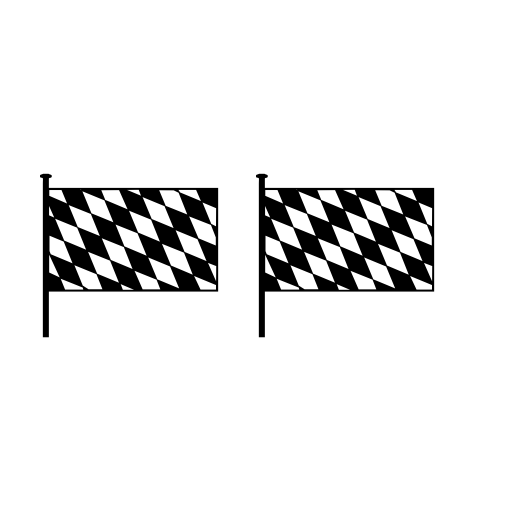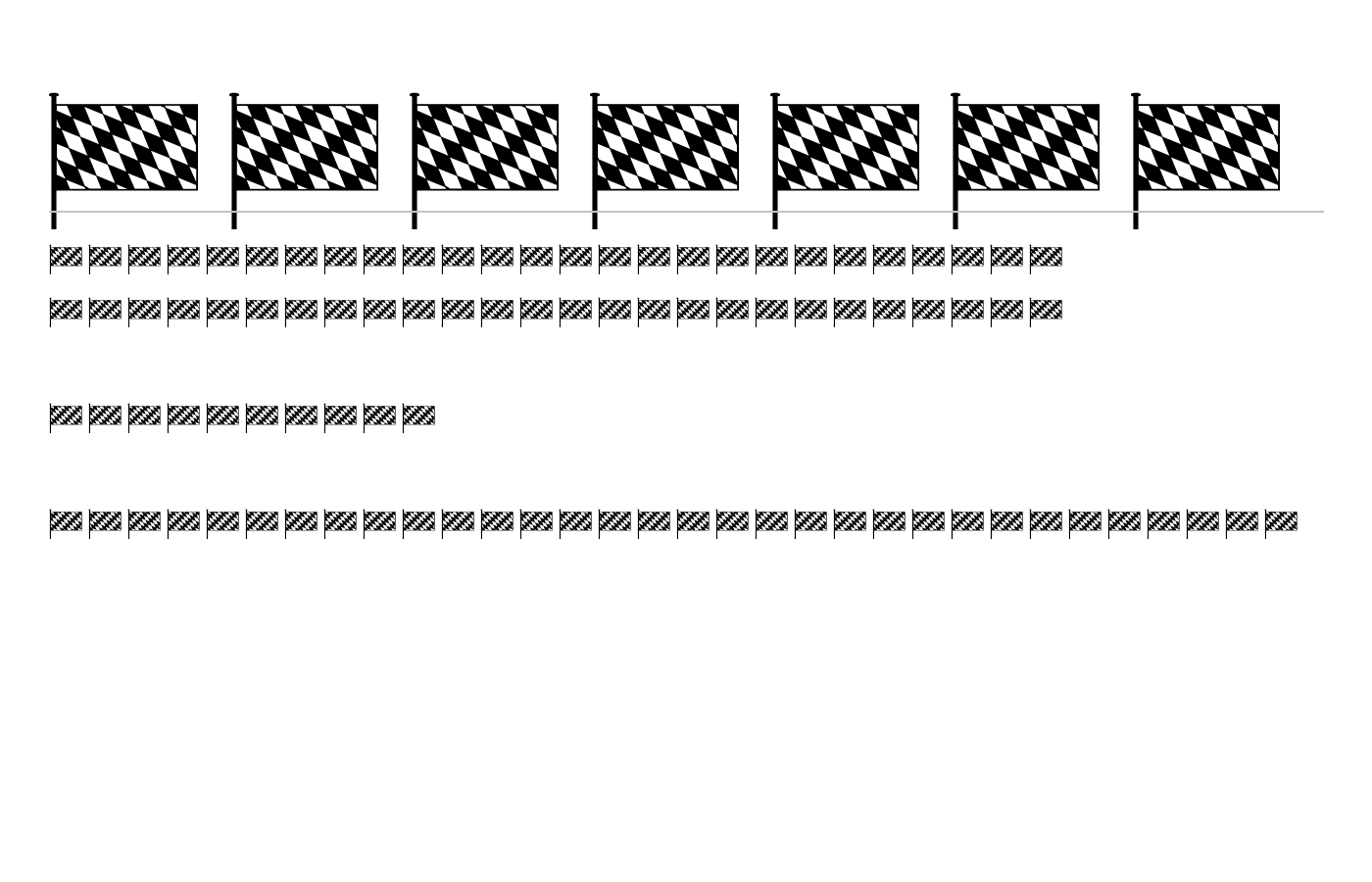
Bavaria Font is a decorative typeface inspired by traditional Bavarian patterns, featuring bold, geometric diamond shapes reminiscent of flag motifs. Its unique, ornamental style makes it ideal for festive or cultural designs, adding a striking and authentic regional character to logos, posters, or themed packaging where a playful yet bold statement is desired.
Bavaria Font